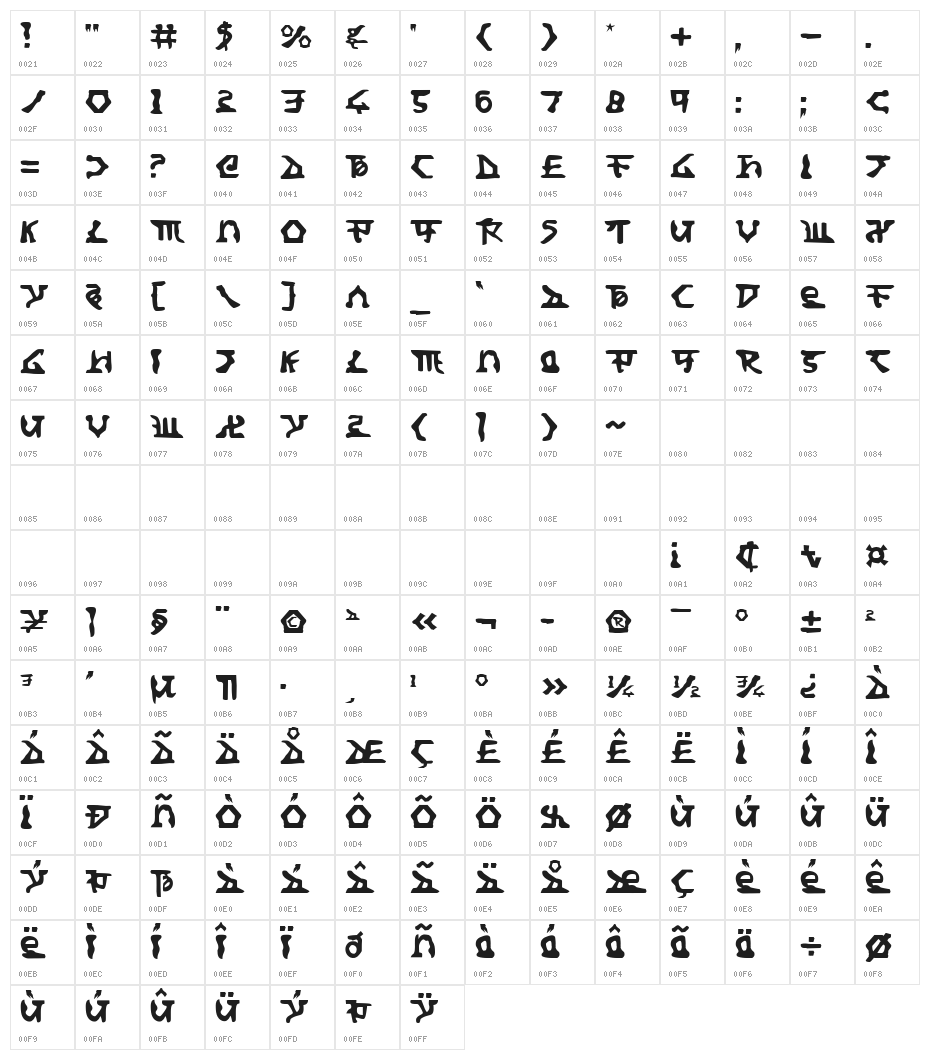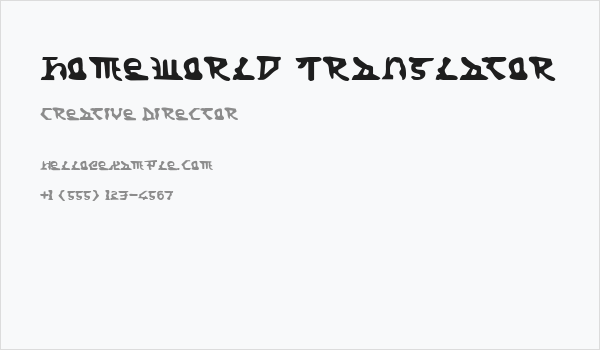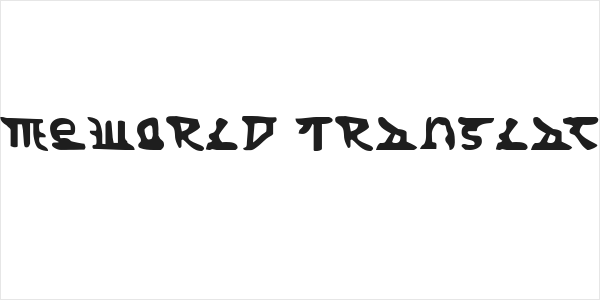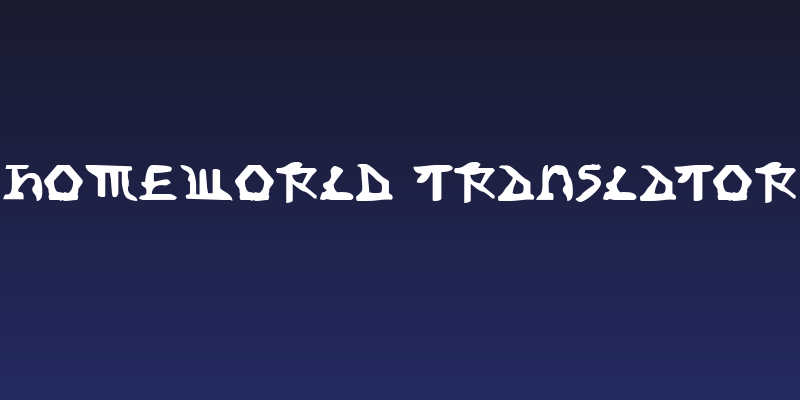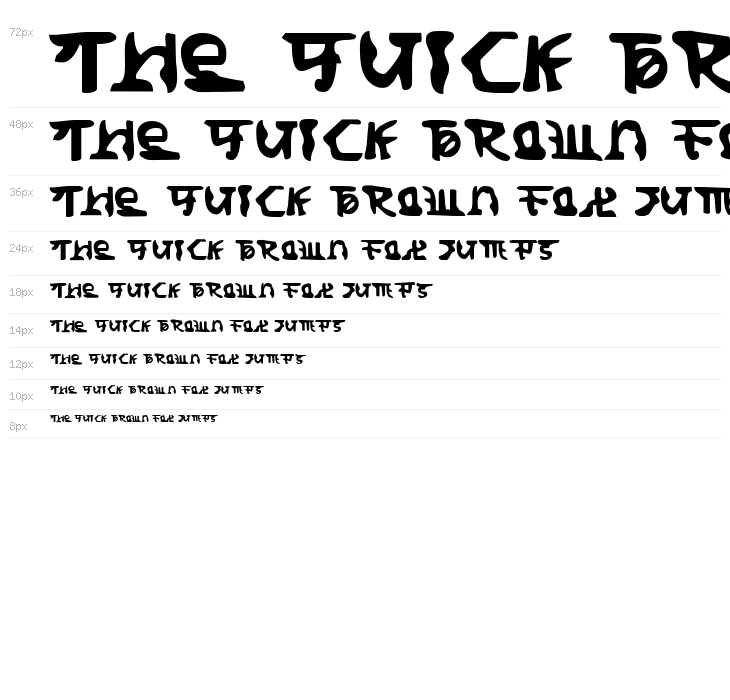
Homeworld Translator Font
Homeworld Translator Description
This font features a unique, futuristic design with angular and geometric shapes that give it a distinct, alien-like appearance. The characters are bold and have a strong presence, making them ideal for attention-grabbing designs. The uppercase and lowercase letters maintain a consistent style, with sharp edges and varying line thicknesses that add to the font's dynamic look. The numerals and special characters follow the same design principles, ensuring a cohesive appearance across all glyphs. This font's unconventional style makes it stand out, offering a creative option for projects that require a modern and edgy aesthetic.
| Overall Style | Futuristic, Edgy |
| Proposed Projects | Ideal for sci-fi themed projects, video game titles, movie posters, and branding that requires a modern, edgy look. |